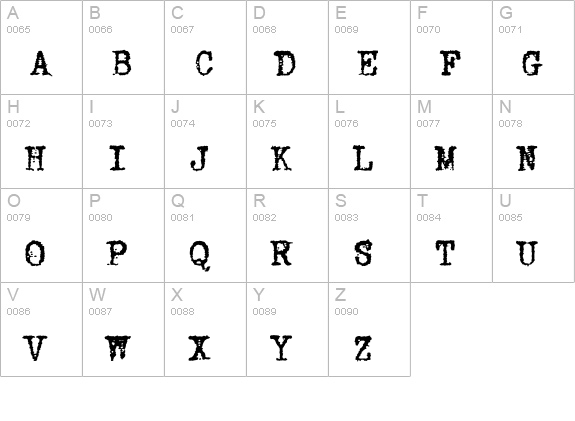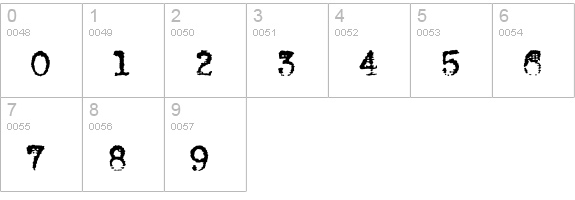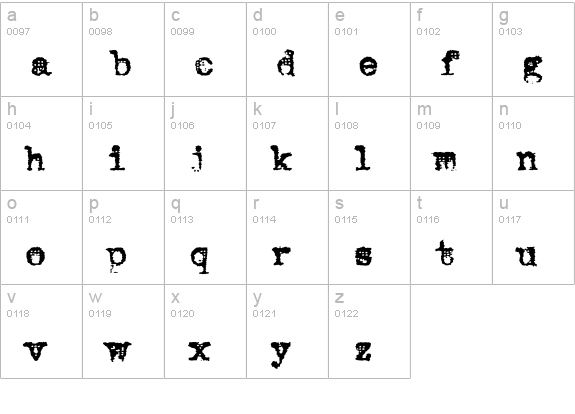
VTypewriter-RoyalElite Font Details
Introducing VTypewriter-RoyalElite, a timeless font that effortlessly combines elegance with a touch of vintage charm. This exquisite typeface is perfect for those seeking to infuse their designs with a sense of nostalgia and sophistication. With its meticulously crafted letterforms, VTypewriter-RoyalElite captures the essence of classic typewriters, showcasing the unique imperfections and character found in each keystroke. Its distinct appearance adds a sense of authenticity and warmth to any project, whether it be a wedding invitation, a book cover, or a logo design. What sets VTypewriter-RoyalElite apart is not only its captivating aesthetics but also its accessibility. This font is freely available to download at FontsMarket.com, ensuring that designers and creatives can easily incorporate it into their work without any restrictions or limitations. Whether you're aiming to evoke a sense of old-world charm or simply seeking a font that embodies timeless elegance, VTypewriter-RoyalElite is the perfect choice. Its versatility and attention to detail make it an ideal companion for any design project, allowing you to effortlessly convey your message with style and sophistication.